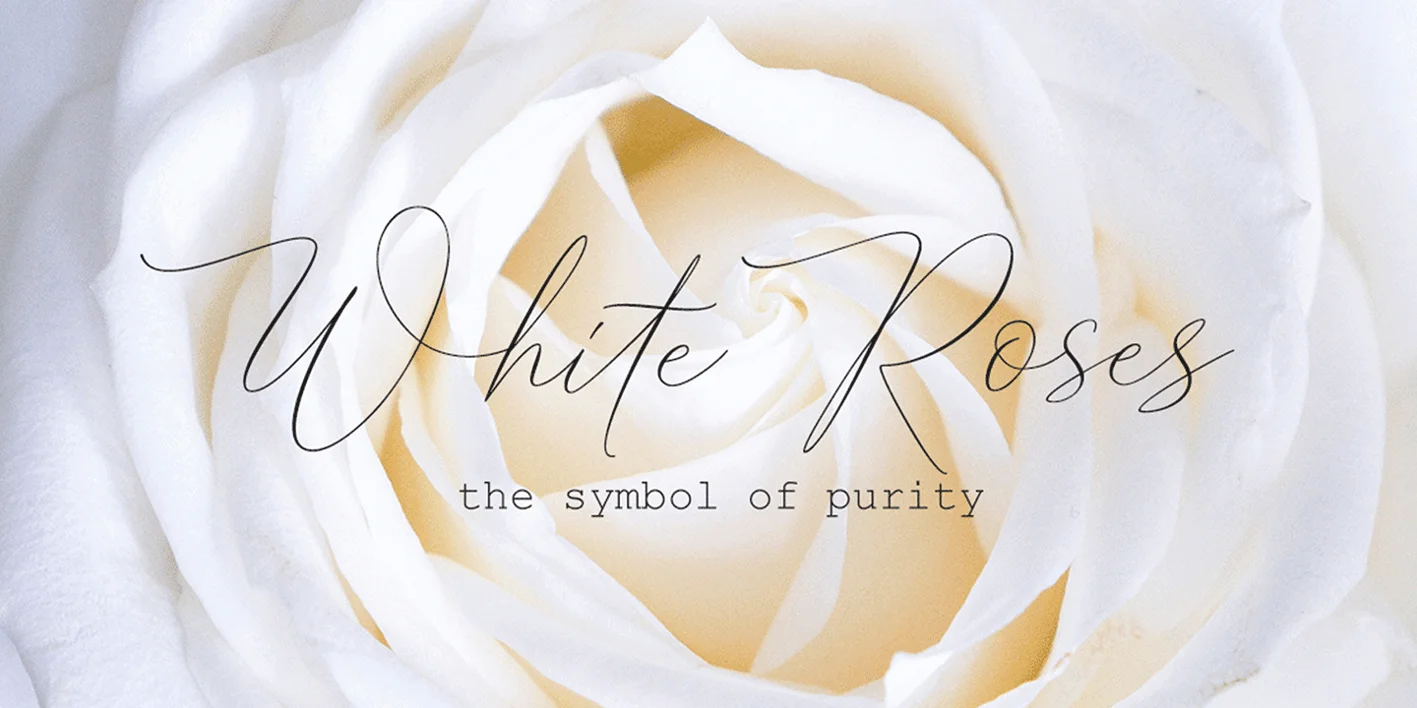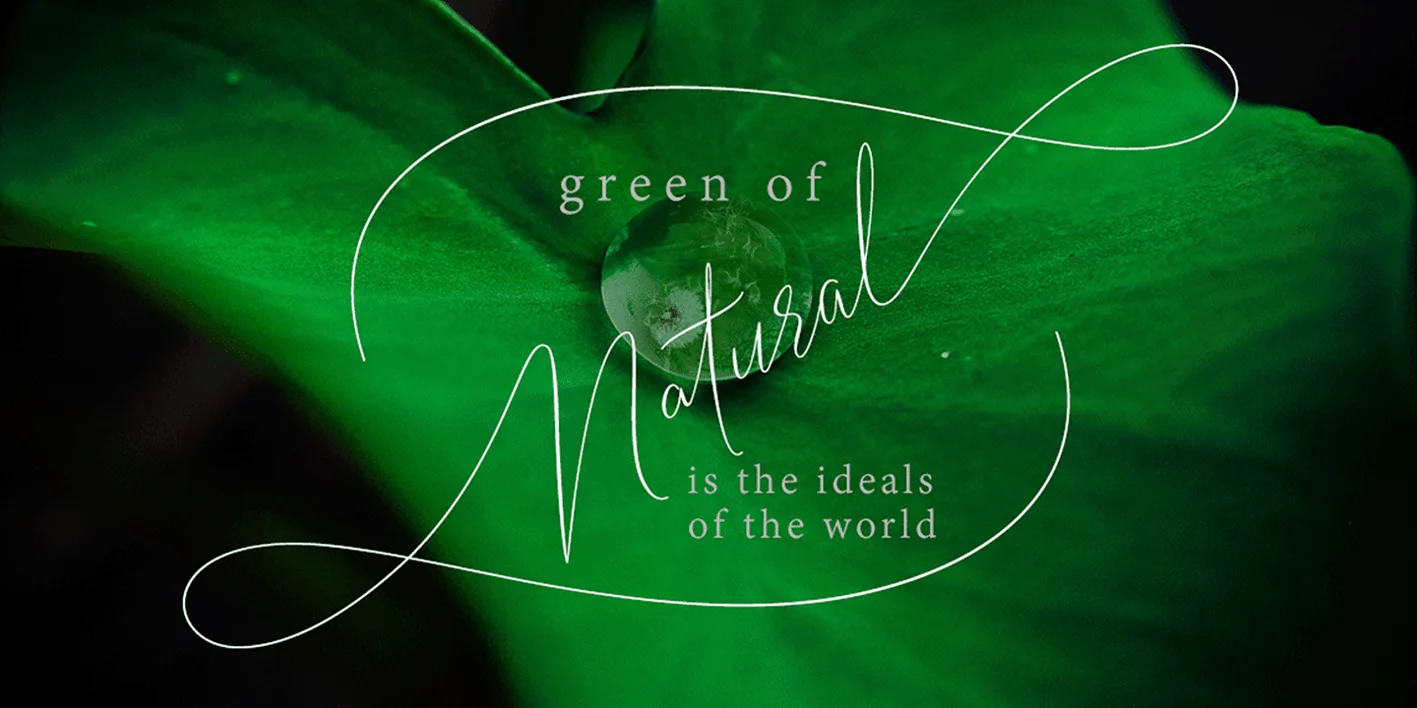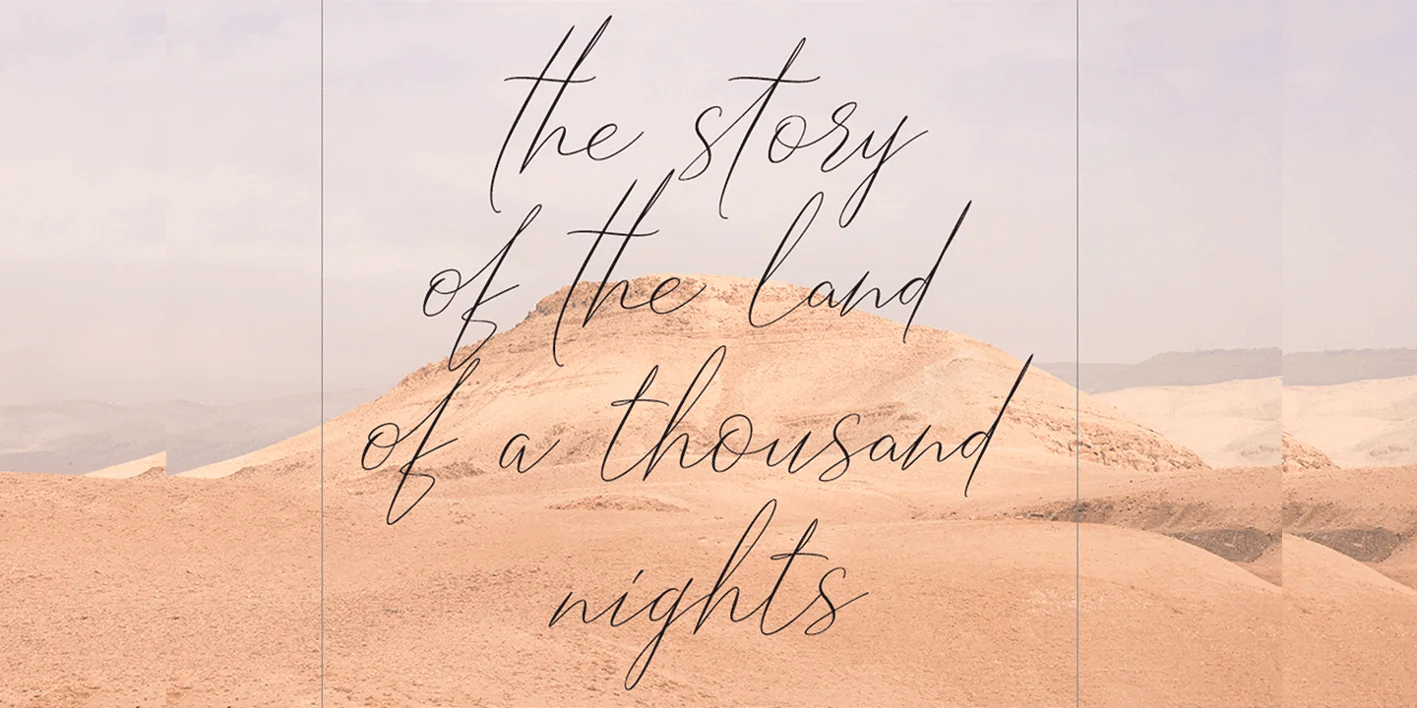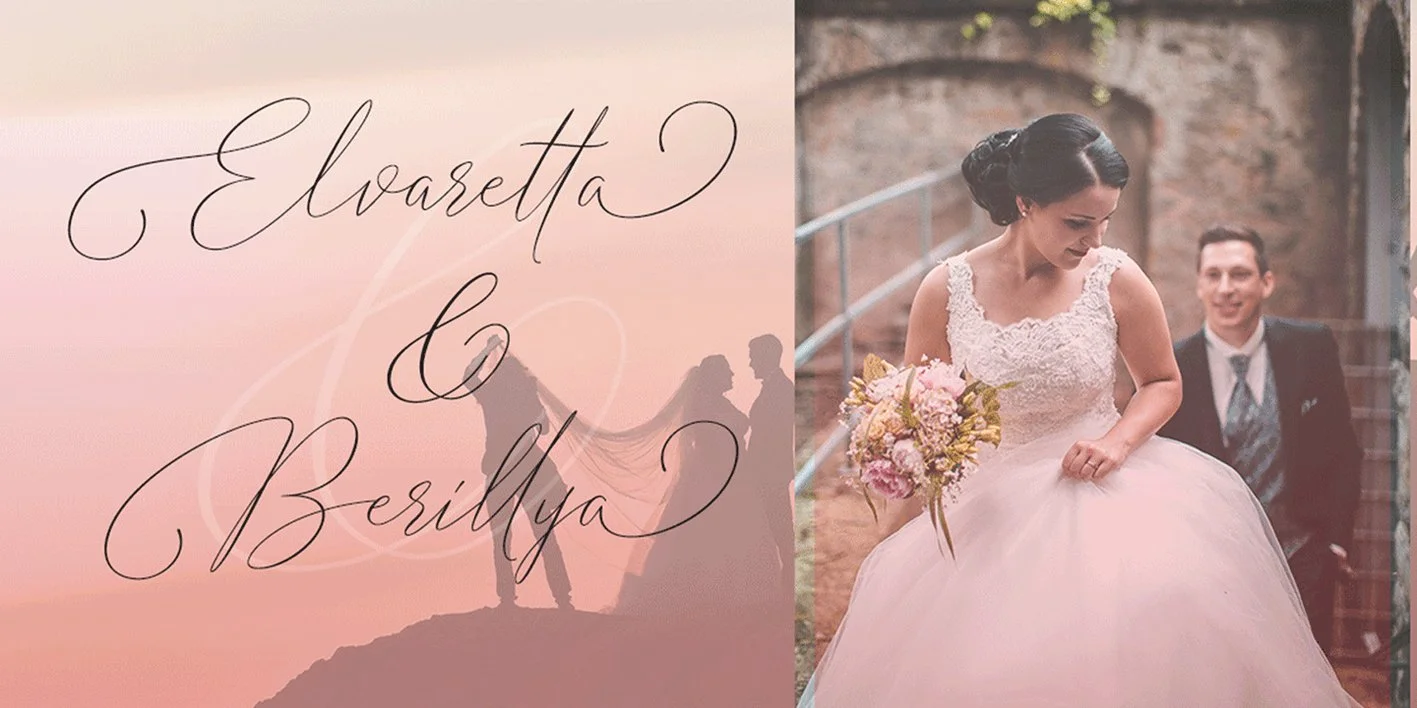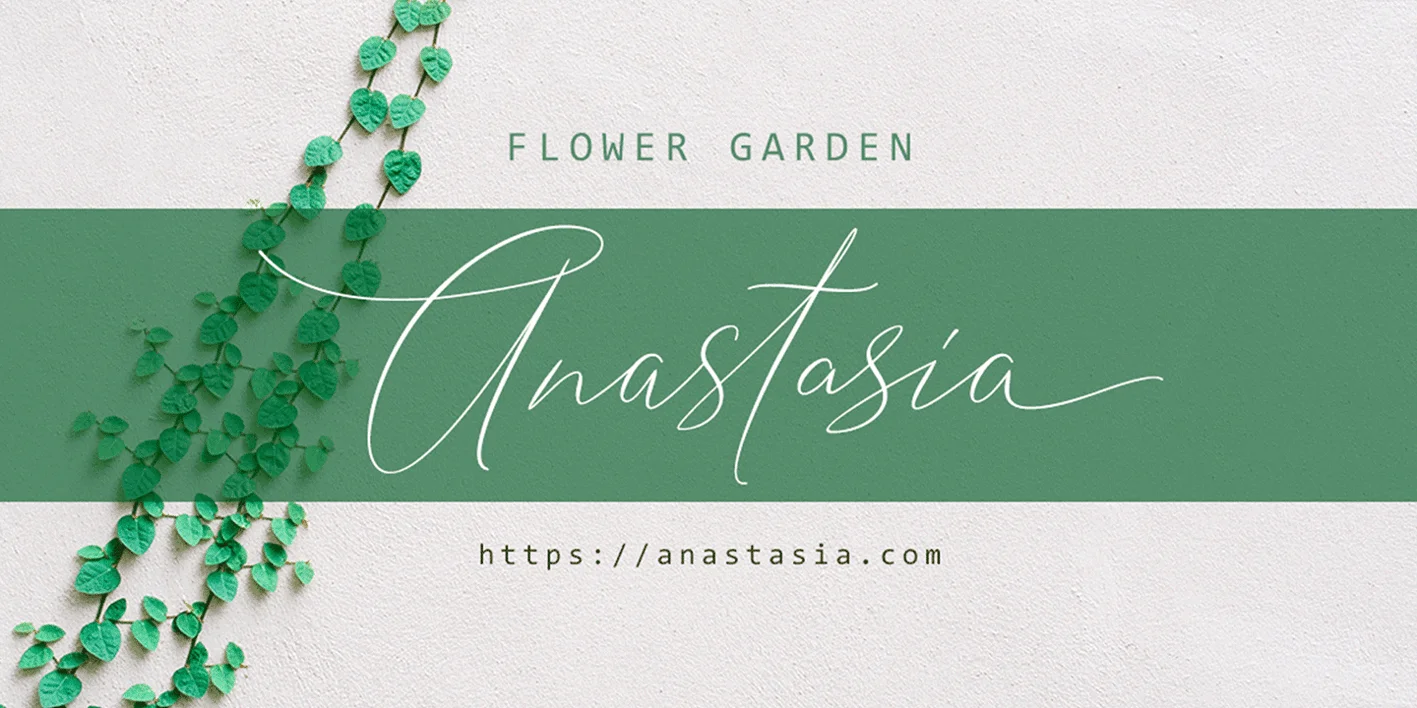
Chica Maravilla Font
A good typeface communicates tone before a single word is read. Chica Maravilla achieves this through a confident voice that adapts to diverse briefs. The typeface brings an elegant, calligraphic sensibility to a broad range of creative disciplines, with consistent type colour across continuous text that holds up whether the work is print-first or screen-first.
In practice, Chica Maravilla proves particularly effective for product labels, web design, wedding invitations, fashion editorials, logo design. Designers reaching for it find that the type decisions feel resolved rather than laboured — a useful quality when client timelines are tight.
The range of applications extends to social media graphics, fragrance labels, advertising campaigns, environmental graphics. That breadth is deliberate: the proportions and spacing were stress-tested across a wide range of mock briefs before the typeface was finalised.
Ascenders and descenders are drawn with generous extents that give the script its characteristic rhythm. Ligature pairs have been individually tested to prevent collisions, and the baseline is slightly bounced to suggest a natural, unhurried hand.
At smaller sizes the design retains its character without becoming cluttered. This resilience across scales makes Chica Maravilla equally suitable for a business card and a billboard — a useful property when assets must scale across a campaign.
Art directors commissioning type-led campaigns find Chica Maravilla a reliable choice for projects that demand both personality and restraint. The design avoids the self-conscious quirkiness that dates quickly, settling instead for considered distinctiveness that holds up over time.